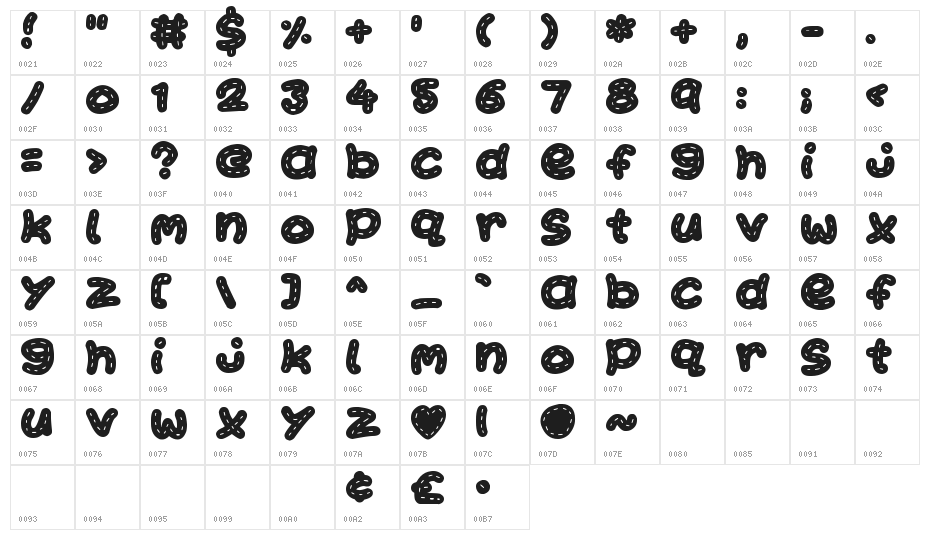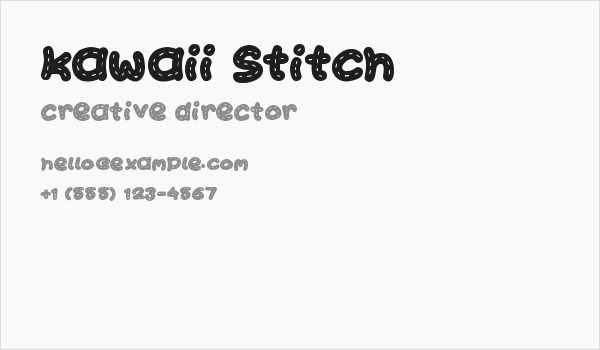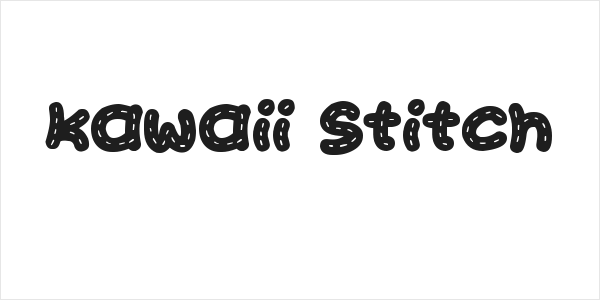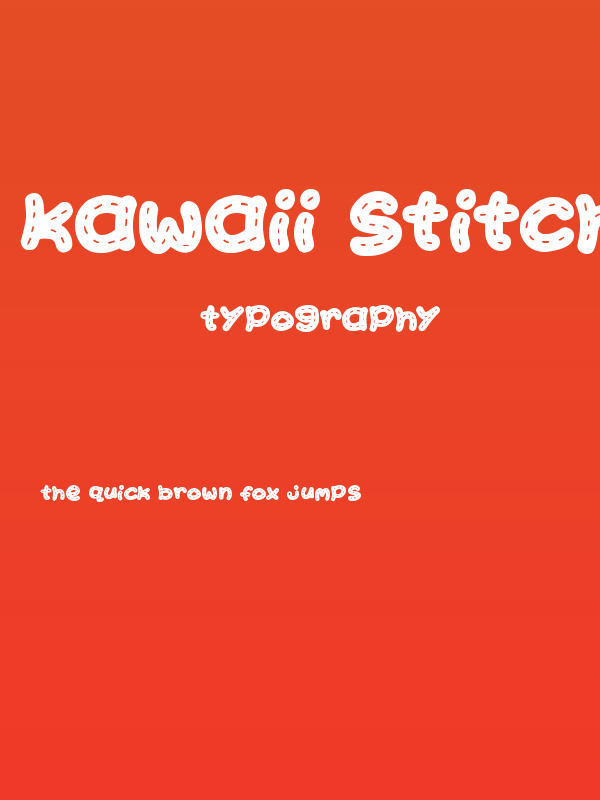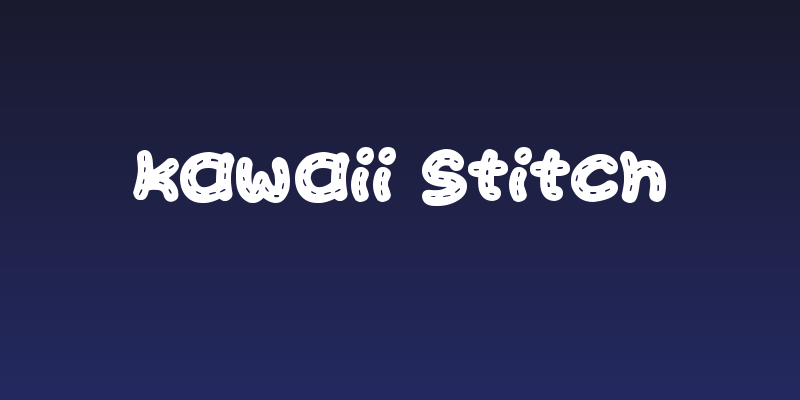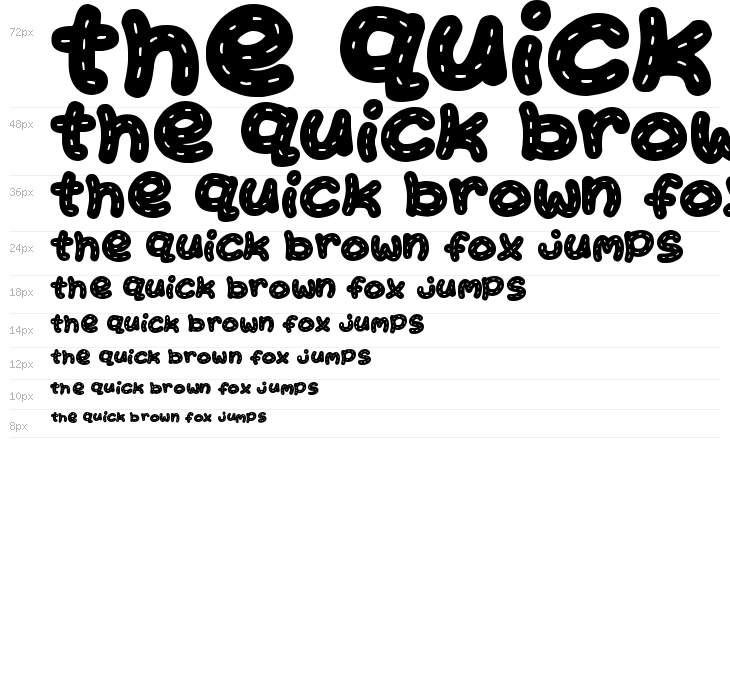
Kawaii Stitch Font
Kawaii Stitch Description
This playful and whimsical font features rounded, bold characters with a unique stitched pattern running through each letter and number. The design gives off a handcrafted, cozy feel, reminiscent of plush toys or embroidered designs. Its thick strokes and consistent patterning make it highly decorative, capturing attention with its charming and friendly appearance. The font maintains a uniform weight throughout, ensuring readability despite its decorative nature. It is perfect for projects that aim to convey a sense of fun, creativity, and warmth.
| Proposed Projects | Ideal for children's book covers, toy packaging, playful branding, and craft-related projects. |